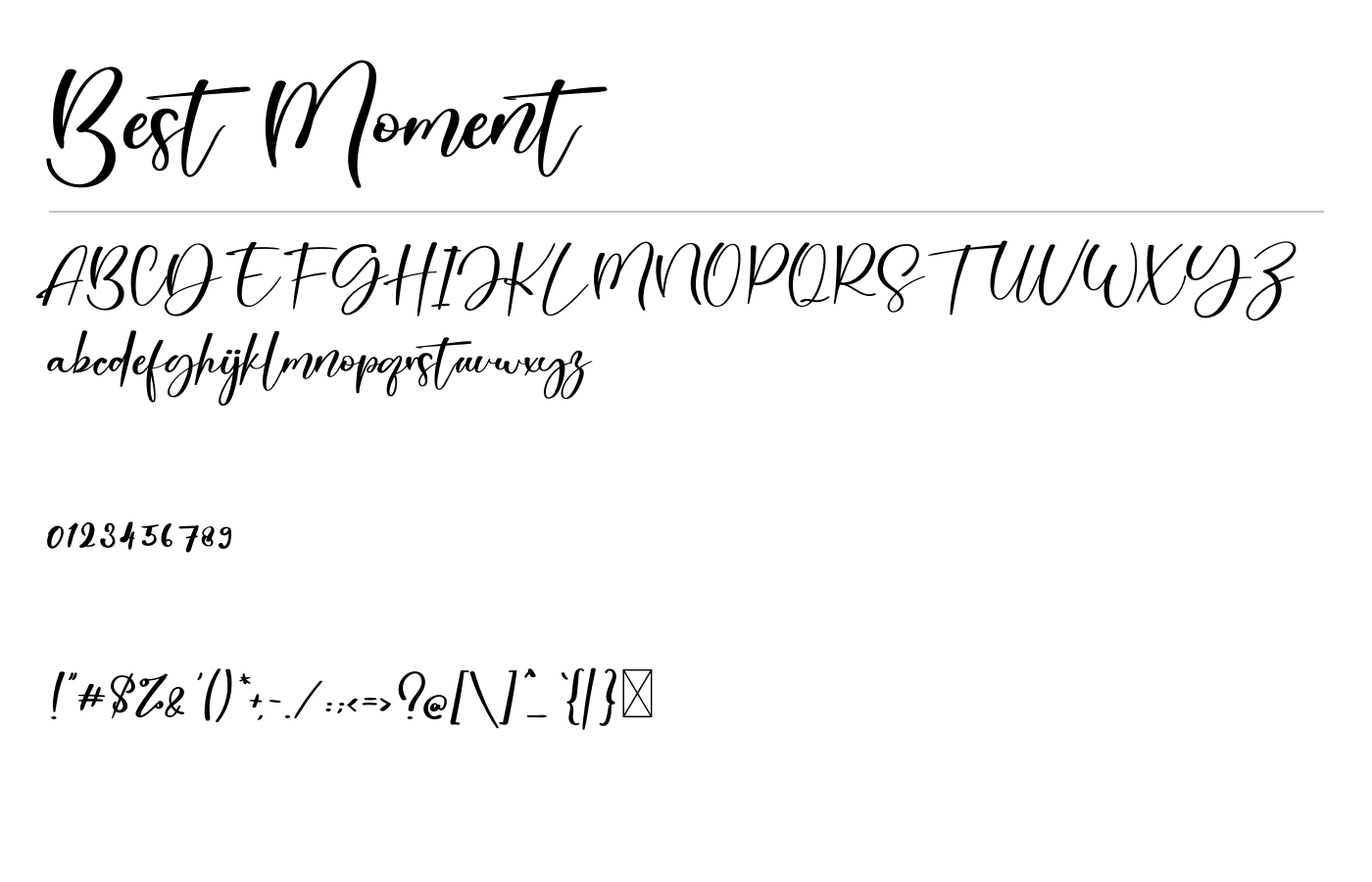
Best Moment Font is a graceful and lively script font featuring long, flowing strokes and a handwritten elegance with moderate contrast and a natural, slightly casual feel. Its tall x-height and slender letterforms give it a modern and airy appearance, making it perfect for invitations, branding, and any design that needs a touch of warmth and sophistication. This font works especially well where a personal, refined, yet approachable style is desired.
Best Moment Font
About Best Moment Font